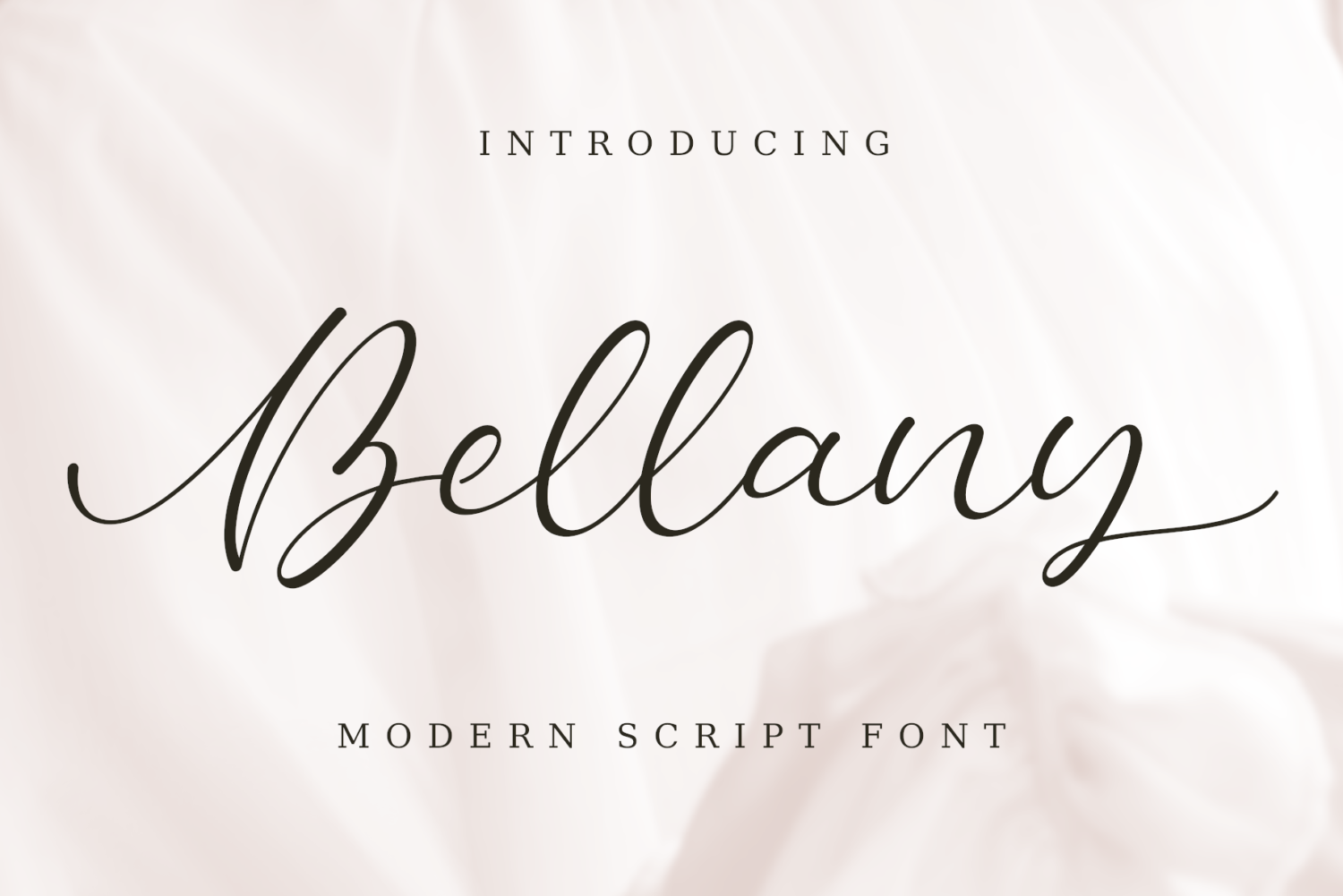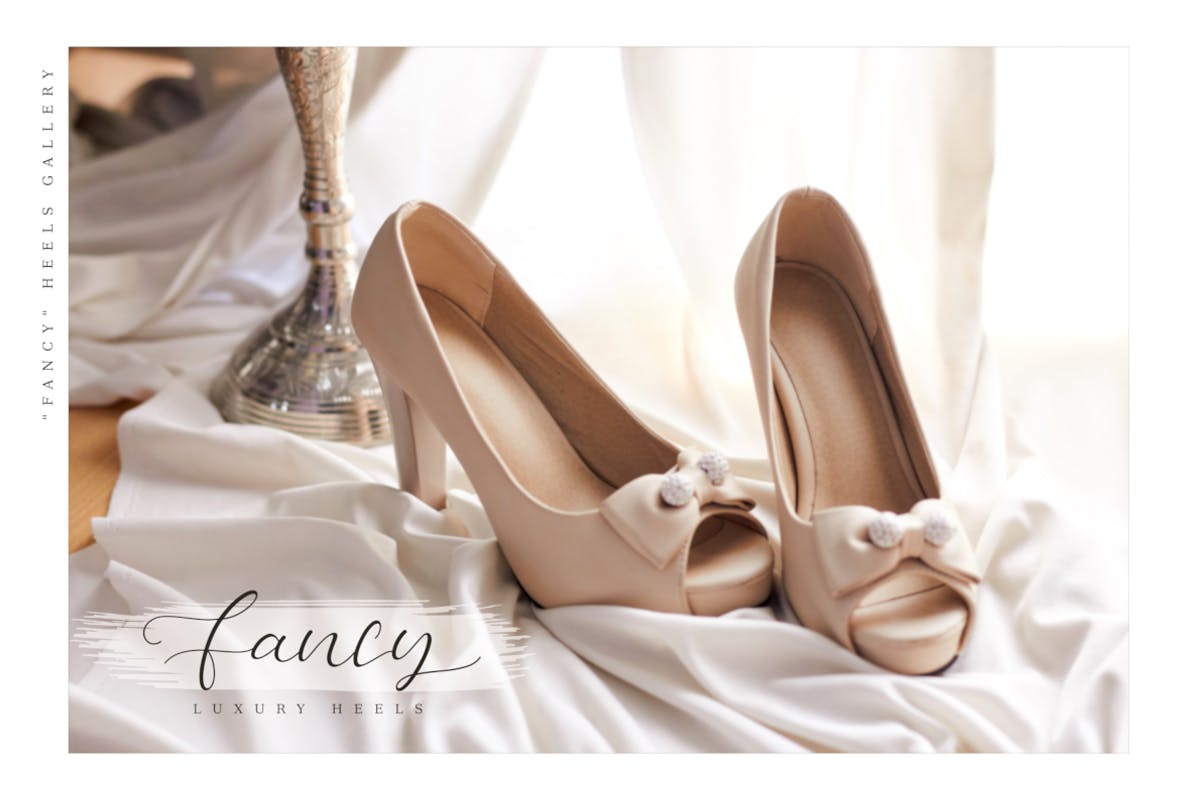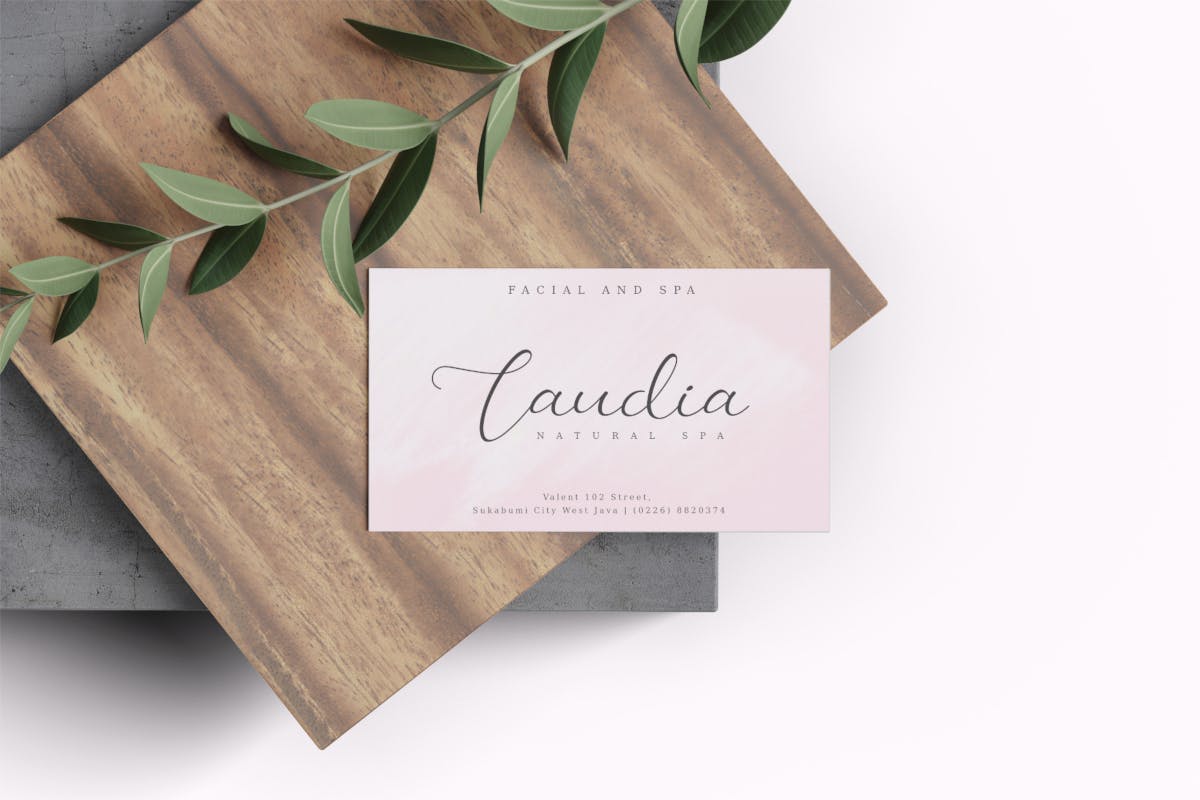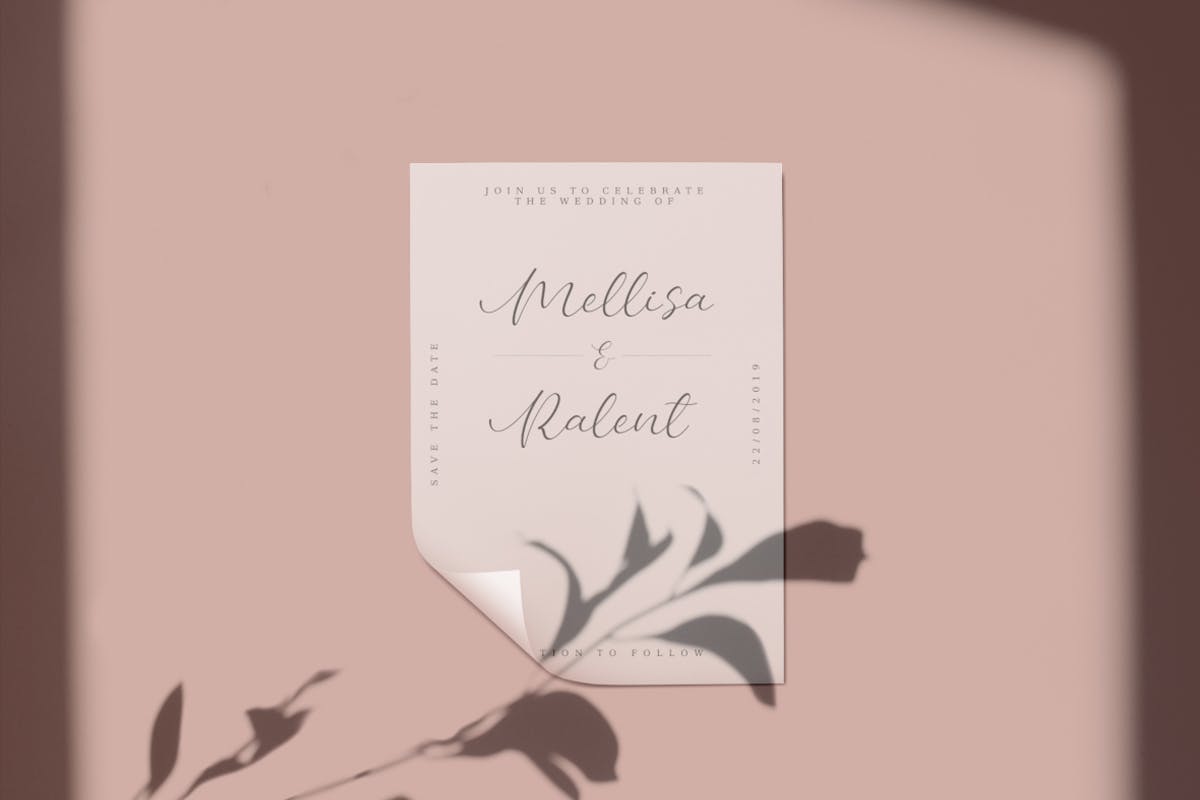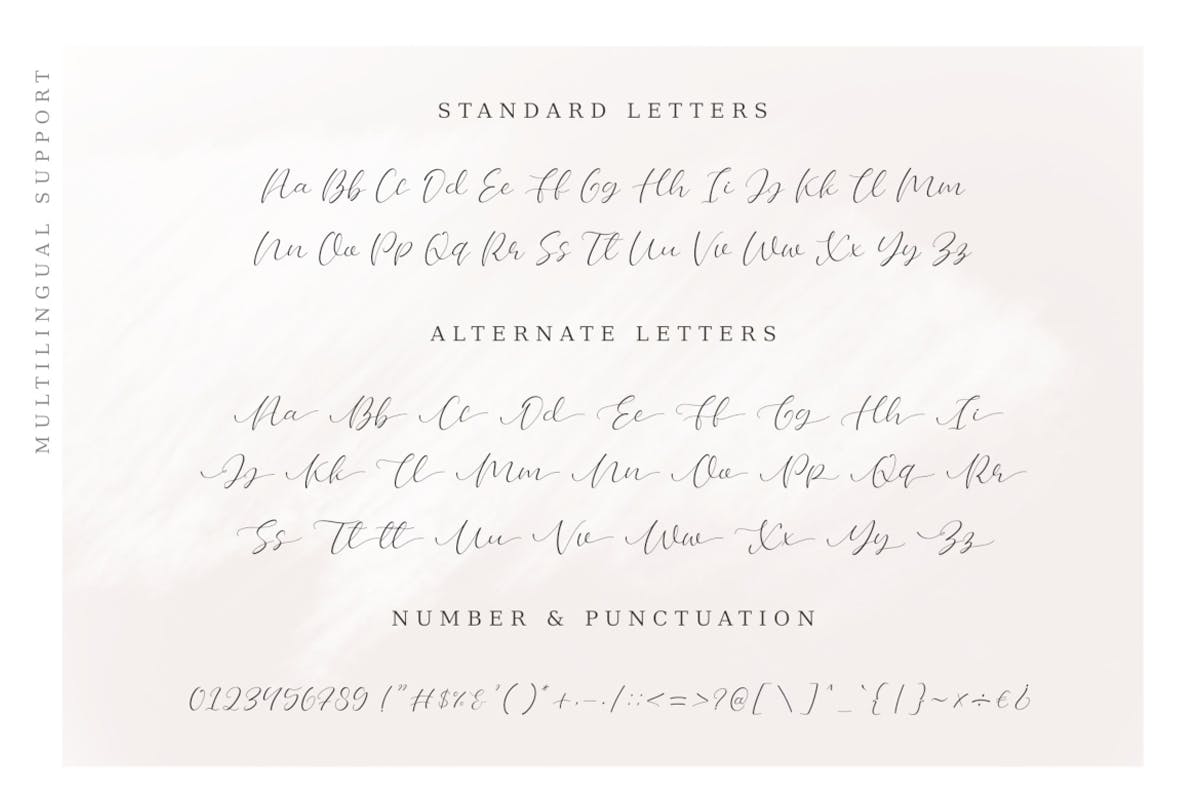
Free Bellany Modern Script Font
Free Bellany Modern Script Font is a modern script font. Coming with a beautiful signature font with ligatures and alternate. It will fit on your works such as banners, packaging, and more. Also, this impressive font is very good to be performed on your logo brands. Coming with two format files which are OTF and TTF. However, this demo font is a personal use license. But, you can get more features by purchasing the premium version.